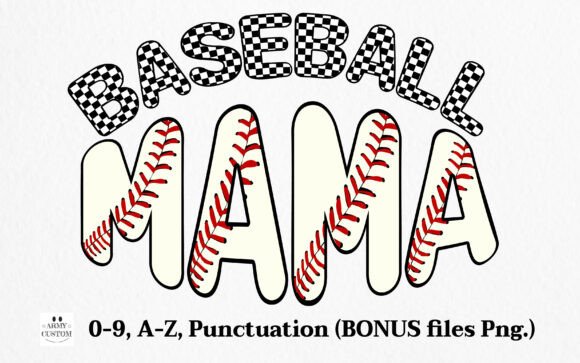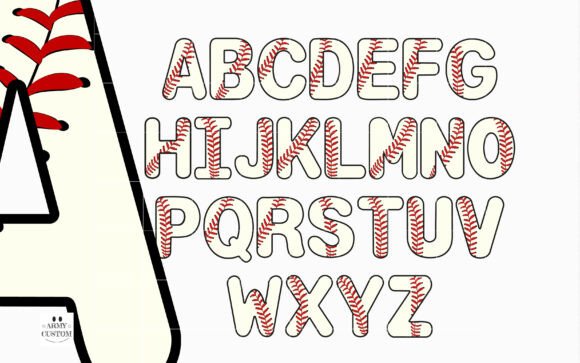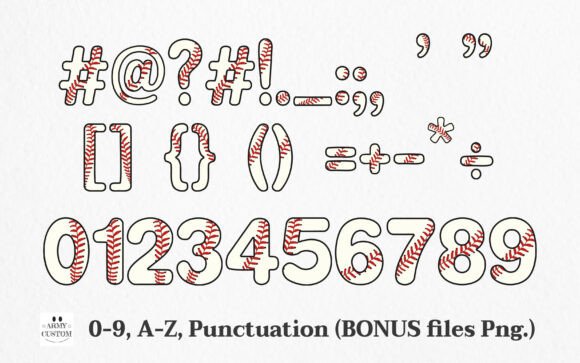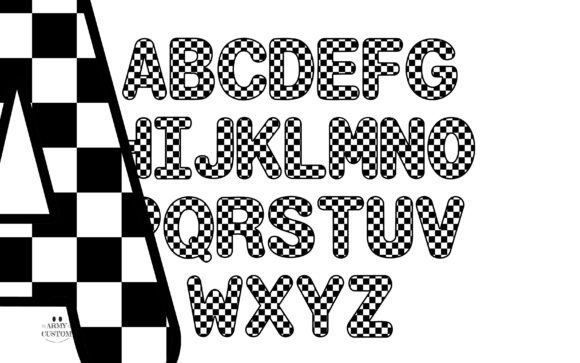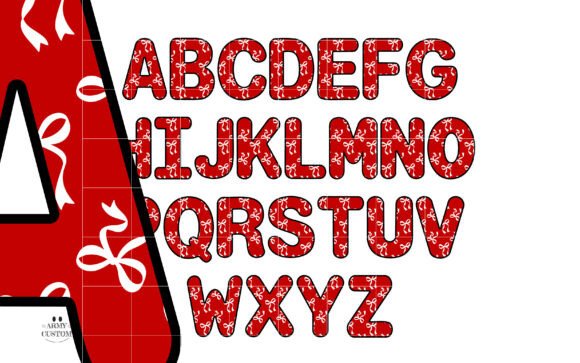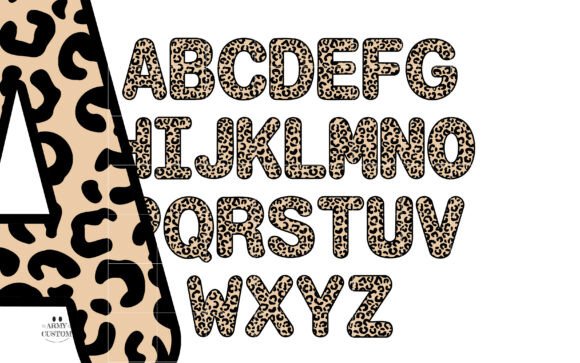
Introducing the Baseball Bundle Font: A Unique Typographical Experience
Are you tired of using the same old fonts for your designs? Look no further! The Baseball Bundle font is here to revolutionize the way you approach typography. This visually stunning font combines eye-catching leopard spots, elegant checkered patterns, and intricate ribbon motifs to create a sporty yet stylish aesthetic that is sure to catch the attention and admiration of viewers.
A Timeless Charm with a Modern Twist
The Baseball Bundle font channels the timeless charm of a classic baseball stitch, offering a memorably unique typographical experience. The fusion of design elements creates a font that is both nostalgic and modern, perfect for designers and crafters looking to add a touch of personality to their work. Each character in this font serves as a canvas for iconic patterns, from classic red baseball stitching and leopard print to trendy checkers and bows.
The AM Baseball OTF font is a powerhouse for custom apparel, sports team merch, and “game day” social media graphics. Whether you’re a designer looking to create high-impact headlines on posters or a crafter looking to add a fun, patterned element to your scrapbooking and DIY crafts, this font is sure to deliver. The Baseball Bundle font is designed to be the star of the show; it doesn’t just say a word, it illustrates a theme.
As a designer or crafter, you’re always on the lookout for new and exciting ways to bring your ideas to life. The Baseball Bundle font is the perfect tool to add to your arsenal. With its unique blend of sporty and stylish elements, this font is sure to bring a festive, athletic energy to your work. Use it to create eye-catching posters, custom apparel, and social media graphics that are sure to stand out from the crowd.
Key Features of the Baseball Bundle Font
- Unique Design Elements: The Baseball Bundle font features a range of unique design elements, including leopard spots, checkered patterns, and ribbon motifs.
- Customizable: Each character in the font can be customized to fit your design needs, allowing you to create a truly unique typographical experience.
- High-Impact Headlines: The font is perfect for creating high-impact headlines on posters, social media graphics, and other marketing materials.
- Perfect for Sports Teams: The Baseball Bundle font is a great choice for sports teams looking to create custom apparel, merchandise, and promotional materials.
Tips for Using the Baseball Bundle Font
To get the most out of the Baseball Bundle font, here are a few tips to keep in mind:
- Experiment with Different Colors: The font looks great in a range of colors, so don’t be afraid to experiment and find the perfect hue for your design.
- Mix and Match Patterns: The font features a range of patterns, so try mixing and matching them to create a unique and eye-catching design.
- Use it Sparingly: While the font is certainly attention-grabbing, it’s best to use it sparingly to avoid overwhelming your design.
The Baseball Bundle font is a game-changer for designers and crafters looking to add a touch of personality to their work. With its unique blend of sporty and stylish elements, this font is sure to bring a festive, athletic energy to your designs. Whether you’re creating custom apparel, social media graphics, or scrapbooking and DIY crafts, the Baseball Bundle font is the perfect choice. So why wait? Download the Baseball Bundle font today and start creating your own unique typographical masterpieces!